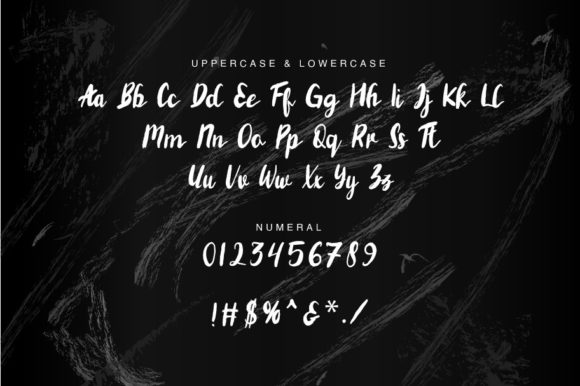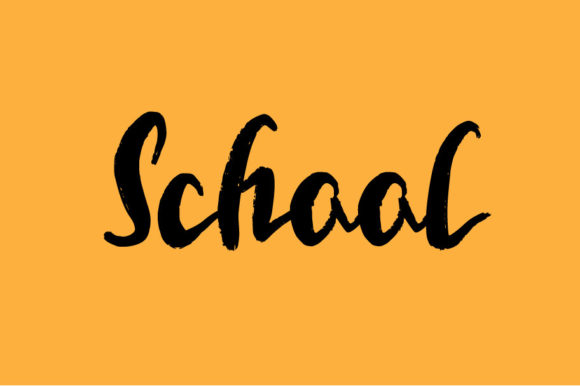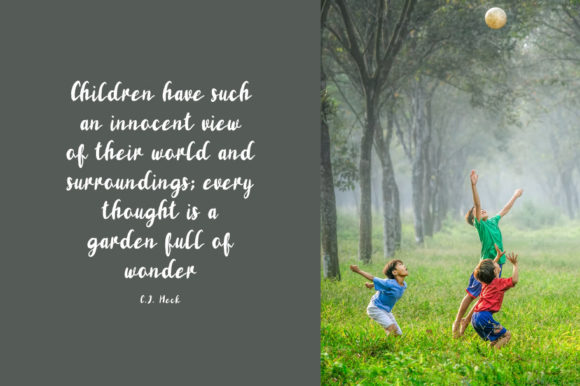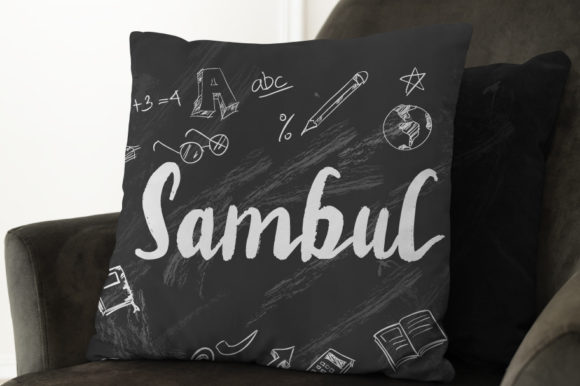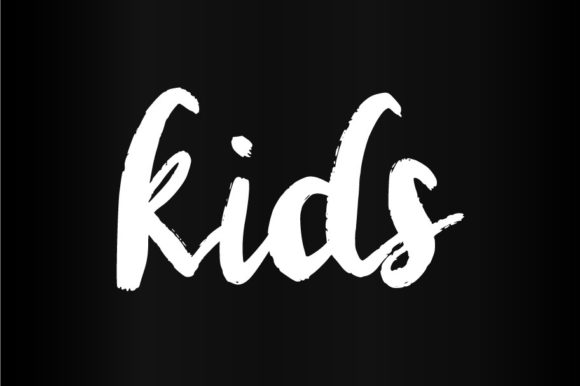
Sambul Font
About Sambul Font
Sambul is playful and cursive script font. Featuring characters that dance along the baseline, this font will add a luxury spark to any design project that you wish to create!